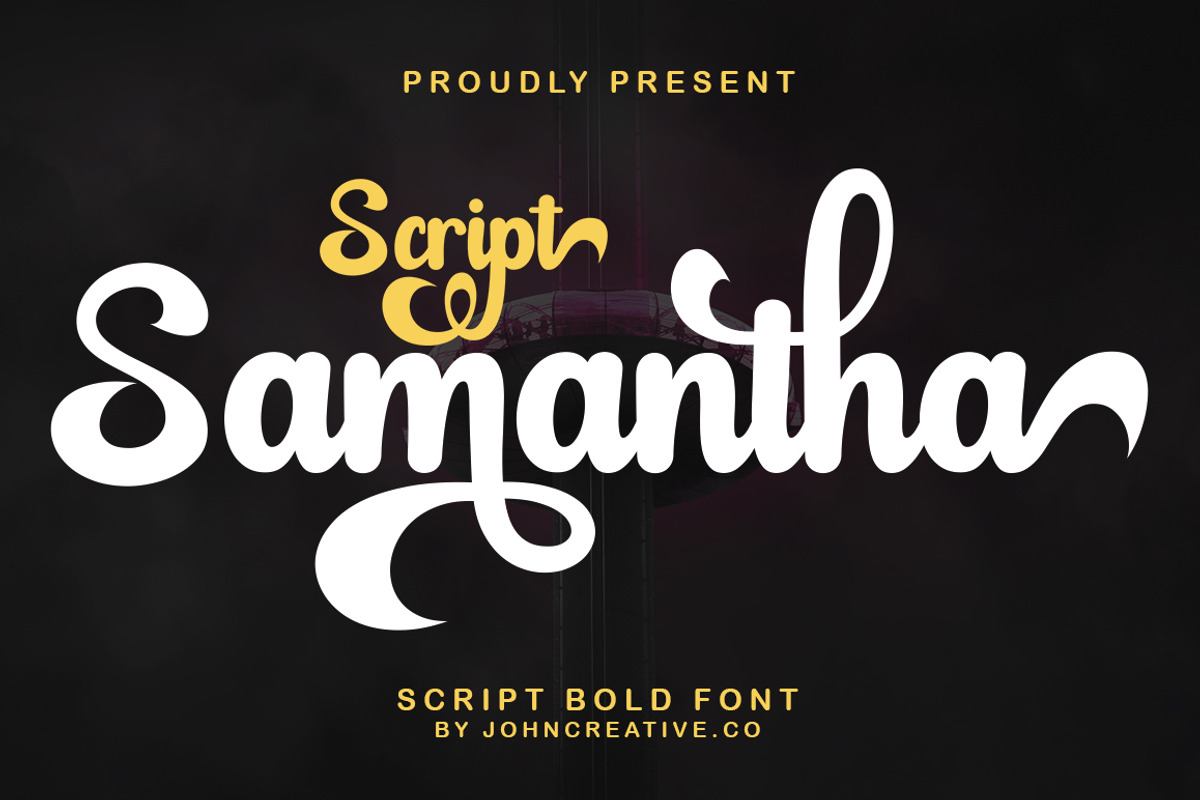
Samantha Script Font Free Download is a beautifully elegant, flowing script typeface designed to bring sophistication and romance to your designs. With its graceful swashes, stylistic alternates, and classic calligraphy feel, this font is ideal for wedding invitations, branding, stationery, packaging, and high-end editorial layouts.
Every letter in Samantha Script is thoughtfully crafted to give your text a luxurious, handwritten look. Its smooth curves and refined details make it perfect for both large display use and delicate accents within your projects.